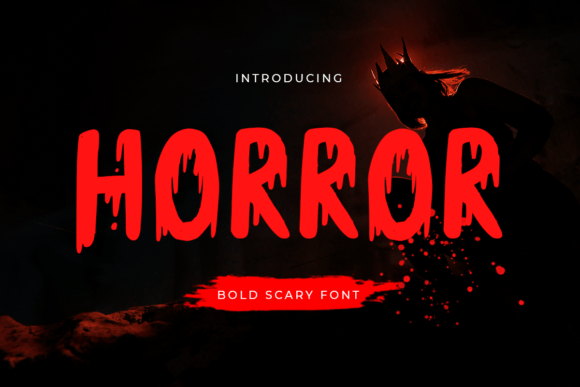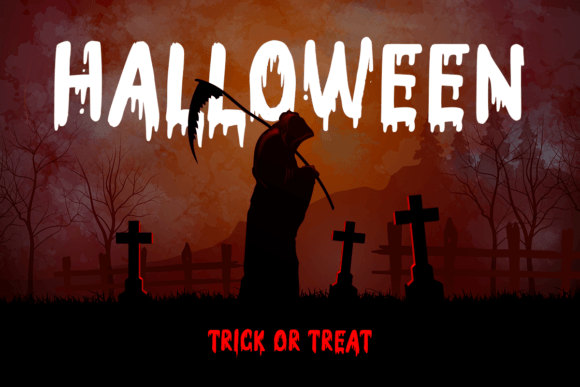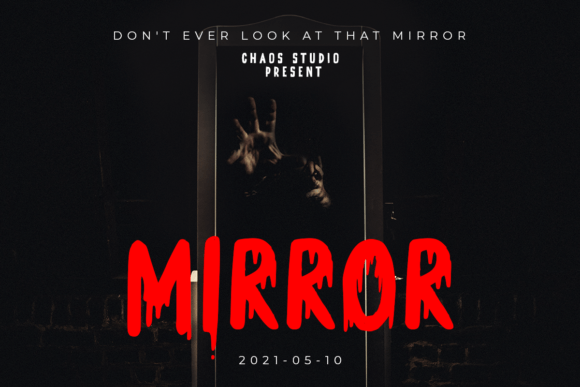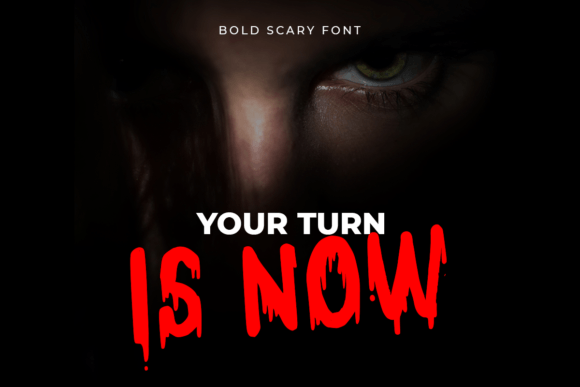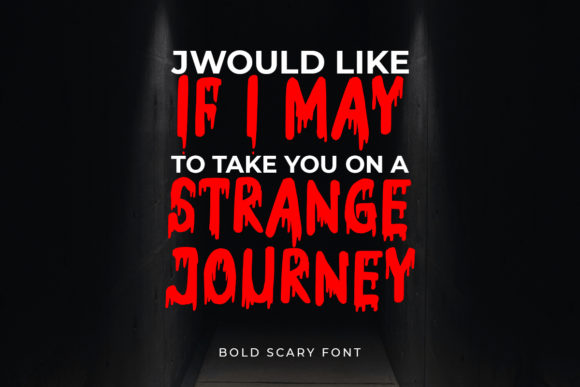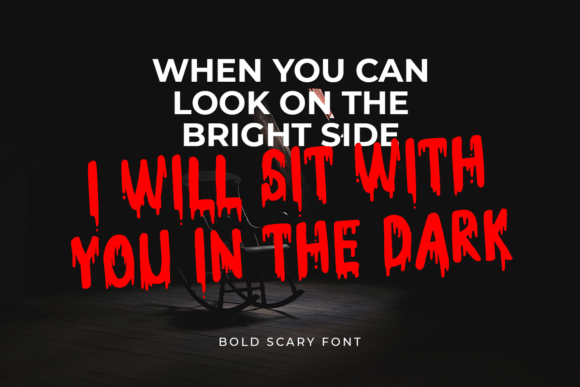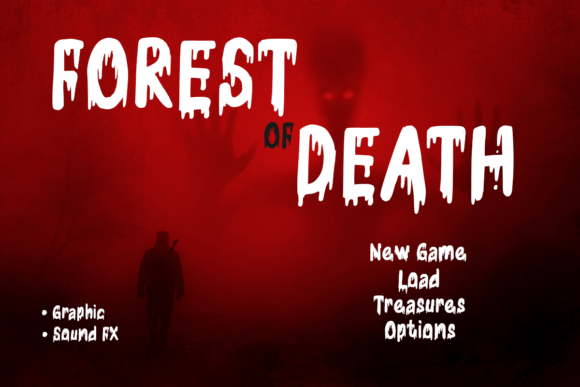
When the Lights Go Out: Unleashing the Power of Horror Font
Do you remember the moment when you were brainstorming a design for a Halloween party invitation and the words just wouldn’t seem scary enough? You wanted to send shivers down your guests’ spines, but the font just didn’t have that eerie ambiance. That’s when you stumbled upon Horror Font, a display typeface that’s as terrifying as it’s mesmerizing.
Horror Font is a spine-chilling display typeface designed to evoke fear and suspense. Its jagged edges and ominous curves give it a terrifying presence, perfect for Halloween-themed designs, horror movie posters, and any project that requires a touch of eerie ambiance. For designers, Horror Font is a valuable tool to add an extra layer of fear to their designs, making it an essential addition to any design toolkit.
Horror Font Key Features
- Font Family: Horror Font is a sans-serif typeface designed to evoke a sense of eeriness and foreboding.
- Unique Characteristics: Features a distinctive, bold design with a subtle texture that adds to its eerie atmosphere.
Horror Font Review
Overall, Horror Font is a unique and eye-catching font that can add a touch of eeriness to any design project. ✨ The bold and distressed style of the font is sure to grab attention, making it perfect for horror-themed movies, video games, or books. ✨ The font’s irregularities and rough edges give it a handmade feel that adds to its charm.
However, there are a few limitations to consider. ⚠️ The font’s readability can be a concern, especially in smaller text sizes. The bold lines and irregular shapes can make it difficult to distinguish between letters, which may lead to misinterpretation. ⚠️ Additionally, the font’s style may not be suitable for all types of projects, such as business or corporate materials, where a more professional and clean look is preferred.
Here are some pros and cons to consider:
- ✨ Unique and eye-catching style
- ✨ Perfect for horror-themed projects
- ⚠️ Limited readability in smaller text sizes
- ⚠️ May not be suitable for all types of projects
Overall, Horror Font is a great choice for designers looking to add a touch of horror to their projects. Just be sure to use it judiciously and in the right context to get the best results.
Tips for Getting the Most Out of Horror Font
Use bold colors and dramatic font sizes to create a spooky atmosphere.
Experiment with different font styles and effects to add depth and texture to your design.
Combine the Horror Font with other creepy elements, such as images or graphics, to create a cohesive and terrifying design.
Horror Font is perfect for:
Creating spooky invitations or flyers for Halloween parties or horror movie nights.
Designing creepy posters or promotional materials for horror movies or TV shows.
Adding a spooky touch to social media posts or blog articles about horror movies or true crime stories.